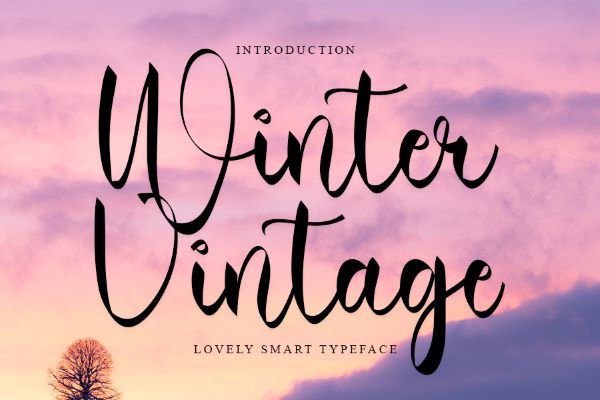
Winter Vintage Font
Winter Vintage Font is an Invitation Font by FreshtypeINK that brings a motivational yet natural outward elegance to branding, invitations, comic design, and more through its flowing calligraphic character. Its handwritten script construction delivers warmth and artistic refinement in equal measure — the kind of typeface that makes every message feel carefully composed and personally meaningful.
A beautiful choice for wedding invitations, Christmas cards, seasonal branding, stationery, cursive headers, and any design where handwritten elegance needs to feel timeless. Browse our full library of Free Fonts and discover more graceful script typefaces from independent designers worldwide.